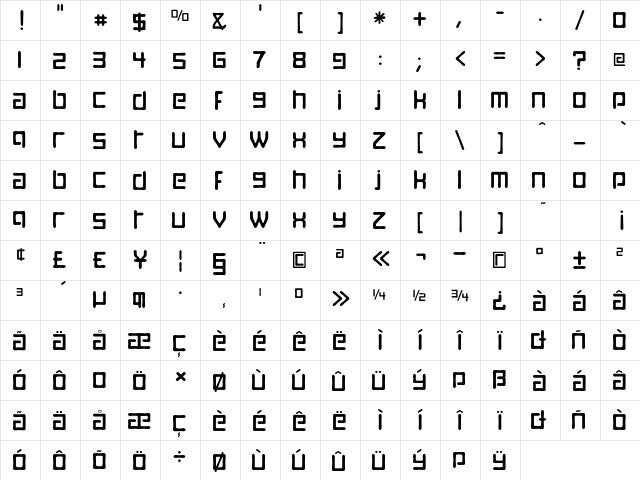
Digitalis Boneface Regular
Design Context for Digitalis Boneface Typeface
Digitalis Boneface channels digital-age aesthetics through its sharp, structured letterforms — ideal for brands that want to signal innovation.
Pro Tip: Use Digitalis Boneface in combination with a neutral sans for body text. Let it define the brand voice in headlines while keeping reading comfortable elsewhere.